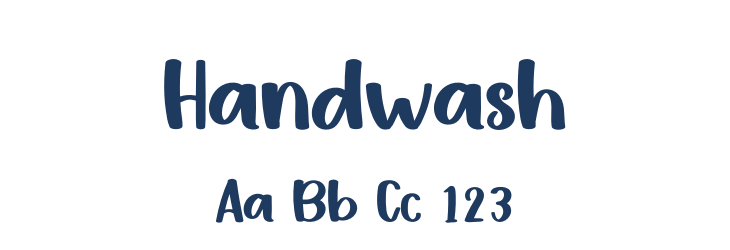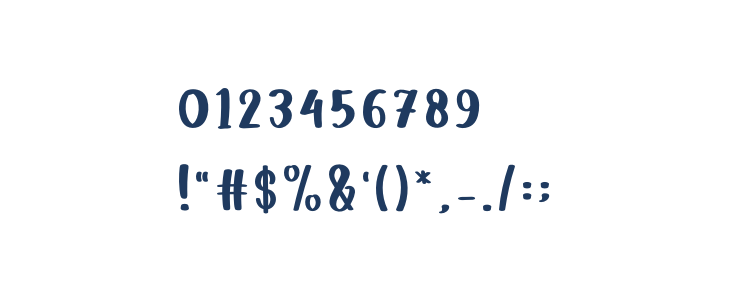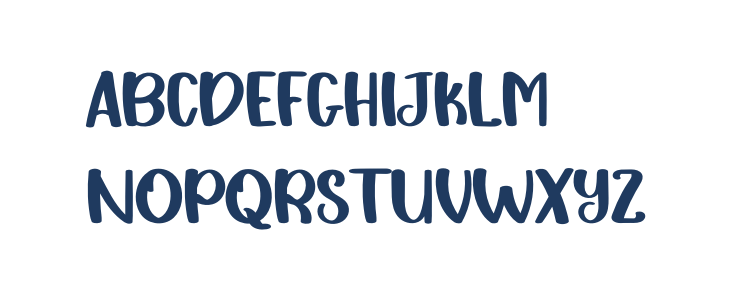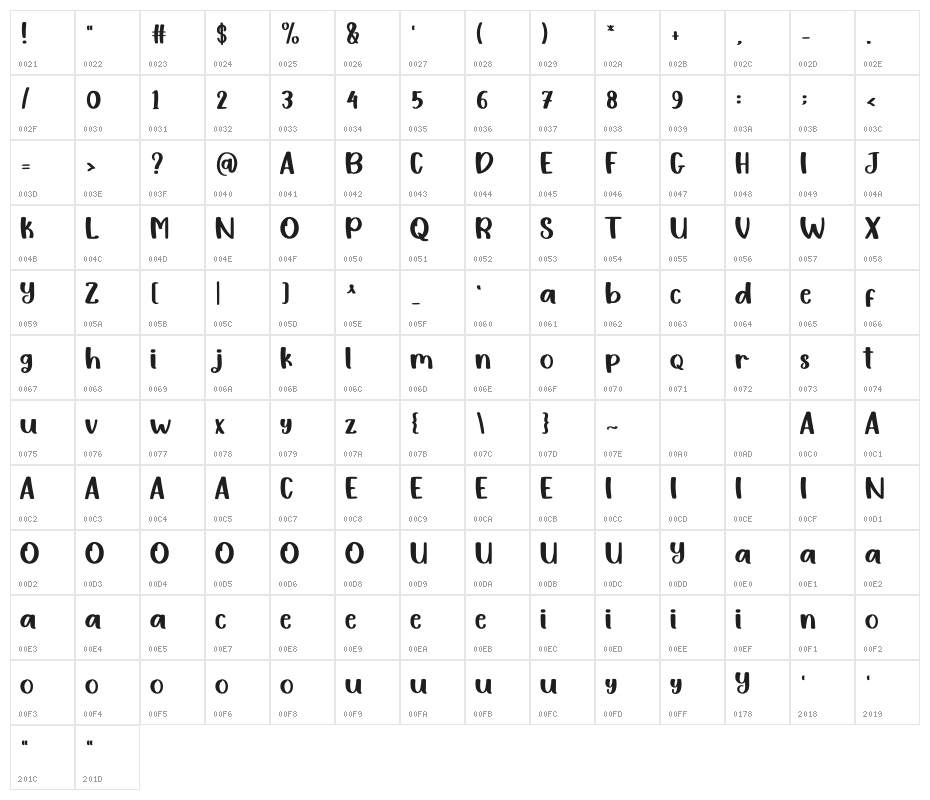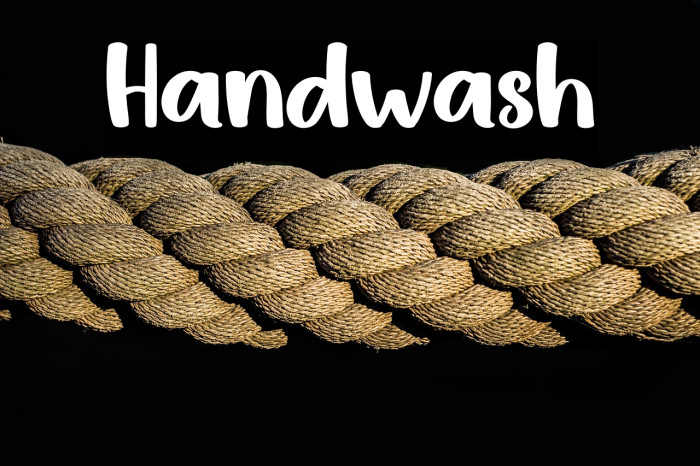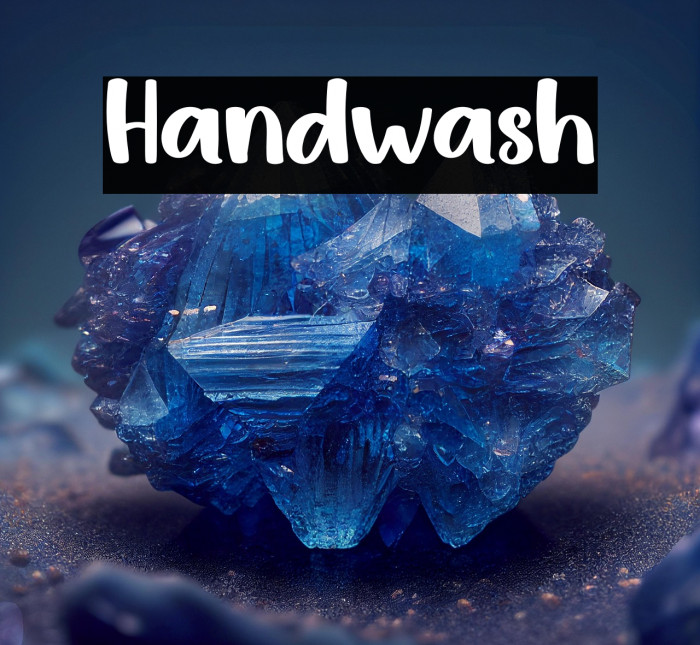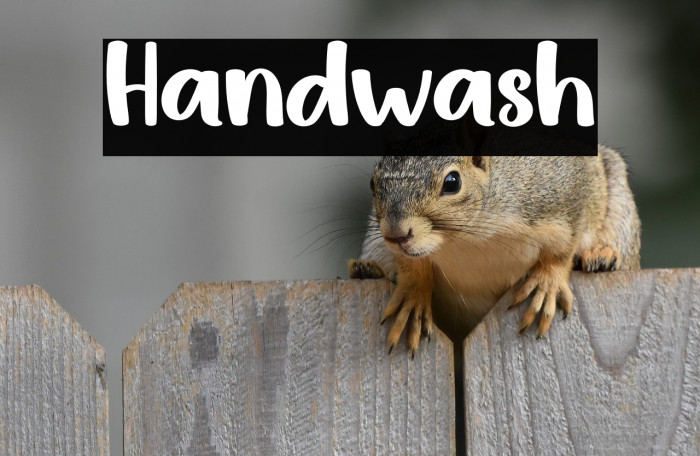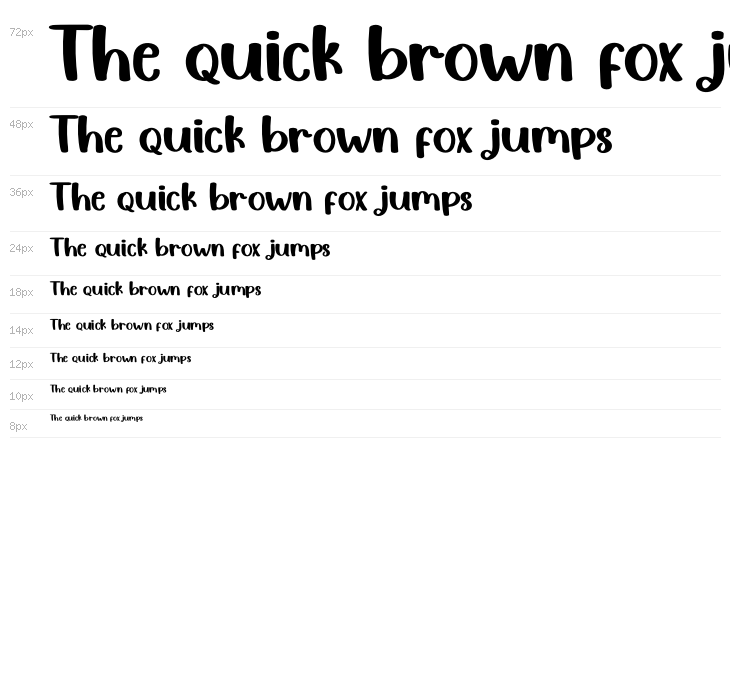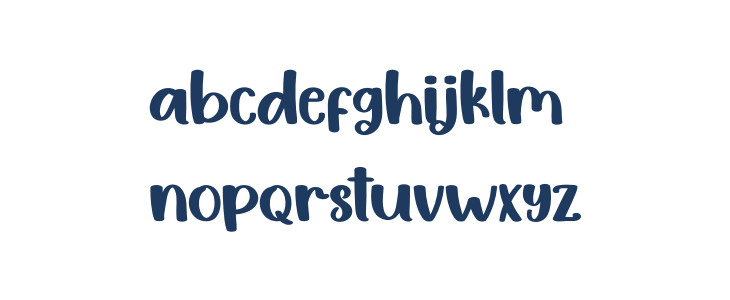
Handwash Font
Handwash Description
A playful, rounded handwritten typeface with bold strokes and a casual, friendly appearance. The characters are slightly irregular, mimicking natural handwriting, and feature consistent stroke width with smooth curves.
| Overall Style | Playful, Casual, Friendly |
| Use Case | Headlines, Logos, Posters, Informal branding |
| Proposed Projects | Greeting cards, children's books, posters, social media graphics, branding for informal products. |